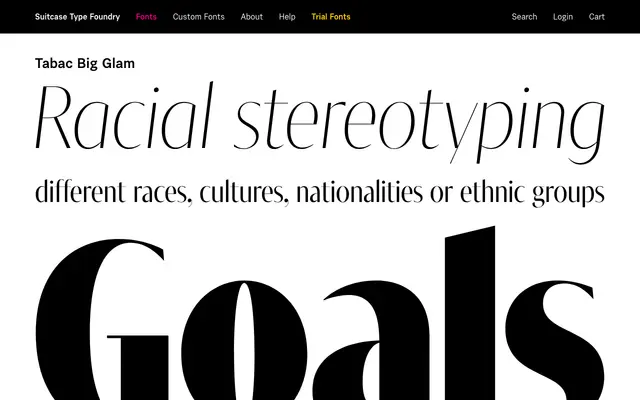
Tabac Big Glam
A display serif from Suitcase Type Foundry's Tabac Big extended family, designed for headline and editorial contexts with a glamorous inflection.
Part of the broader Tabac superfamily, Tabac Big Glam sits at the decorative end of the range alongside related subfamilies including Tabac Big Slab, Tabac Big Sans and Tabac Glam. The 'Glam' designation suggests a high-contrast, expressive serif character suited to fashion editorial, packaging and headline display. The Tabac superfamily as a whole is one of Suitcase Type Foundry's more developed multi-style systems.
The 'Glam' naming and placement within the Tabac display subfamily suggests a high-contrast, decorative serif aimed at headline and editorial use, consistent with glamour-inflected display typography.